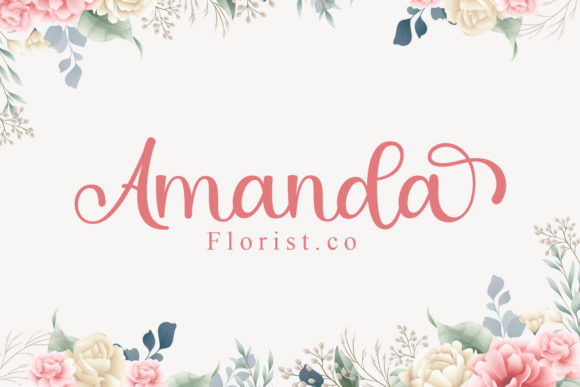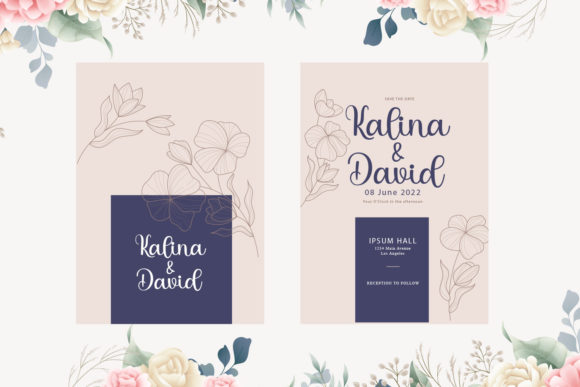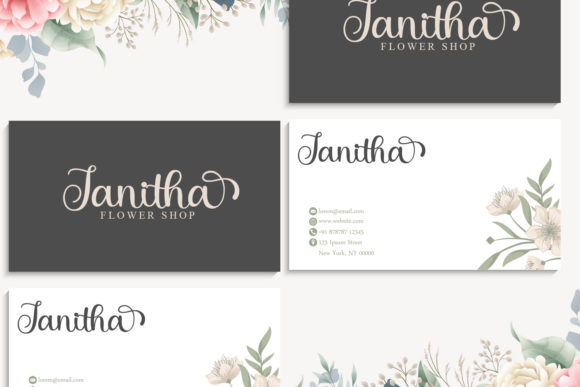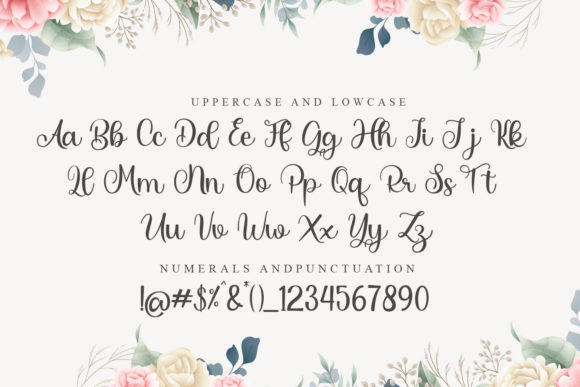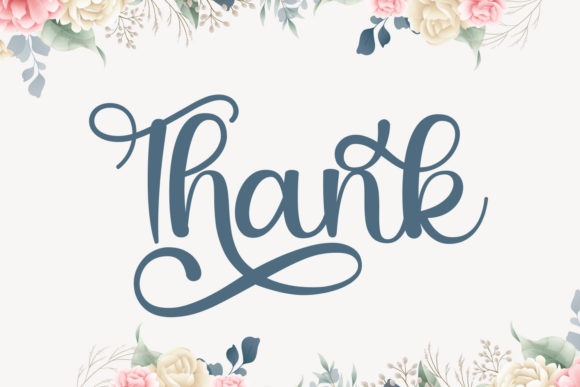
Introduction to Hello Shela Font
Hello Shela is an exquisite handwritten font, masterfully designed to become a true favorite.
It maintains its classy calligraphic influences while feeling contemporary and fresh Hello Shela is PUA encoded which means you can access all glyphs and swashes with ease.